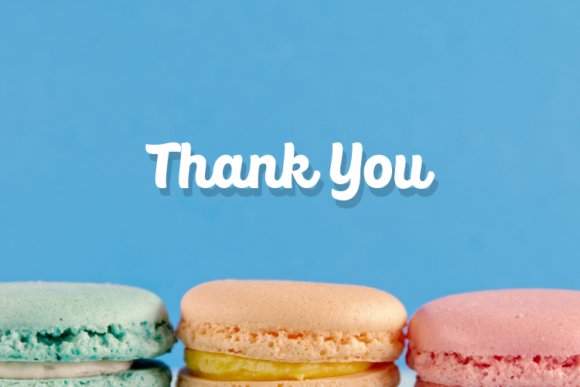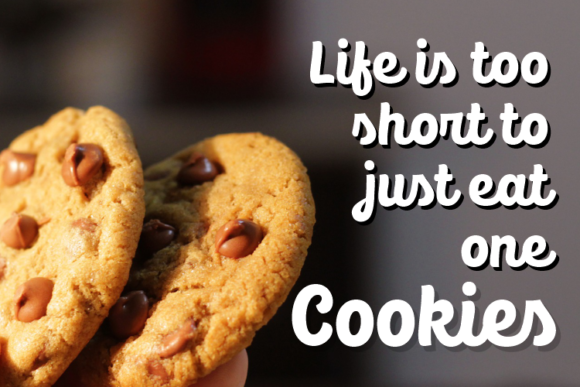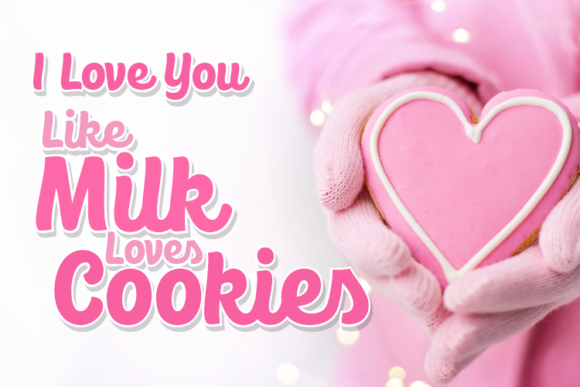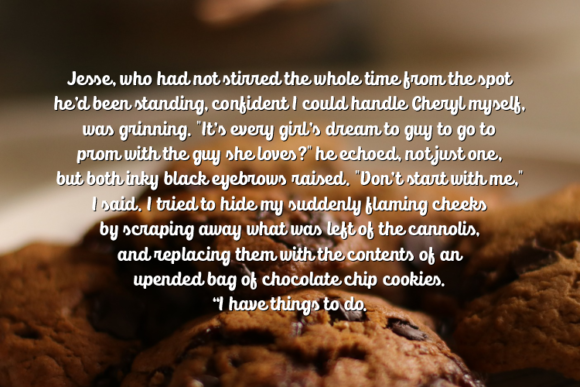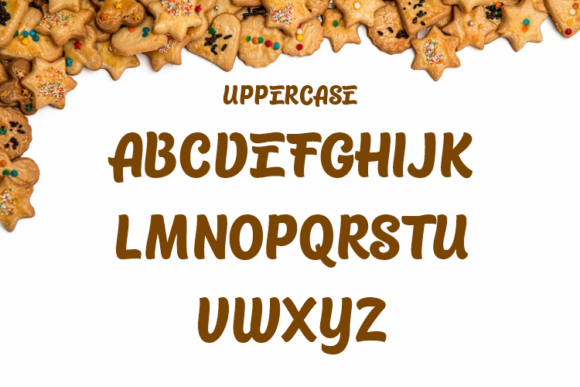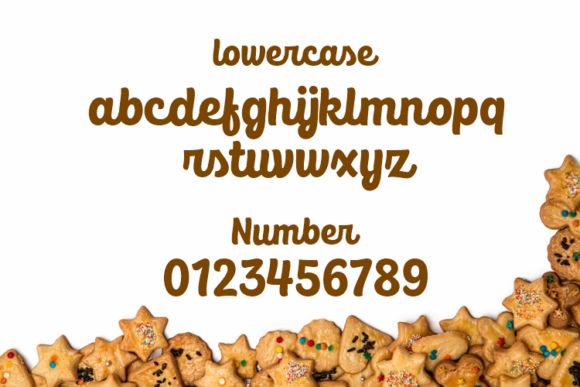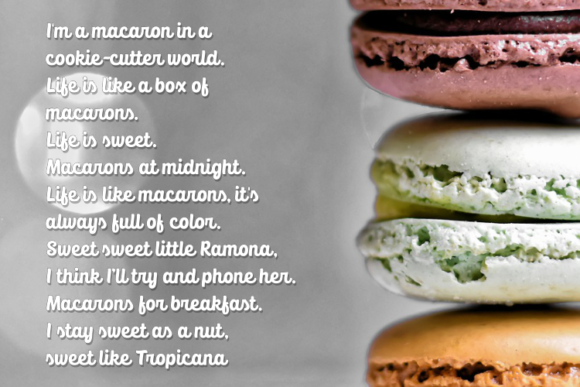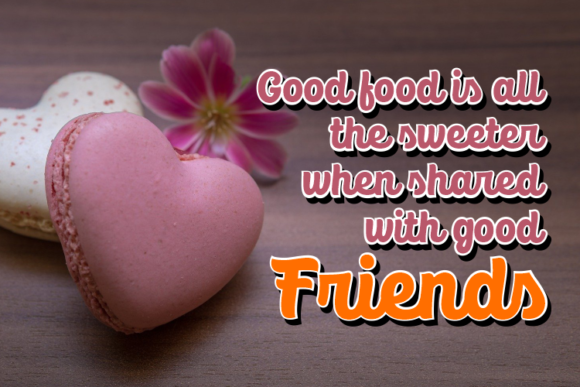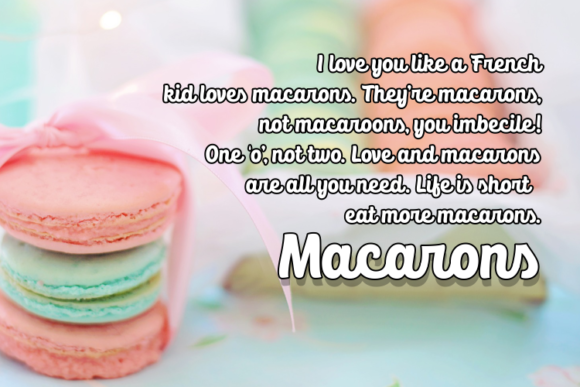
Cookies Font
About Cookies Font
Cookies is a thick lettered and paint brushed handwritten font. It is suitable for various design needs such as business cards, wedding invitations, banner ads and various other creations.